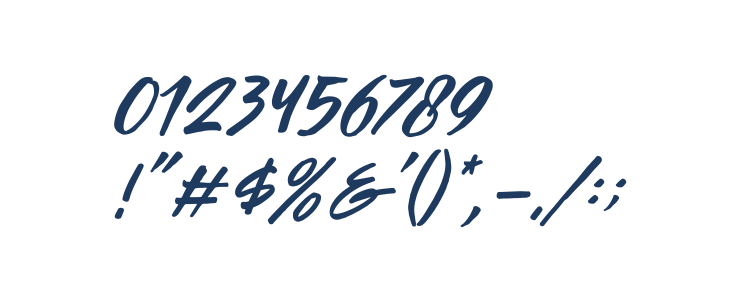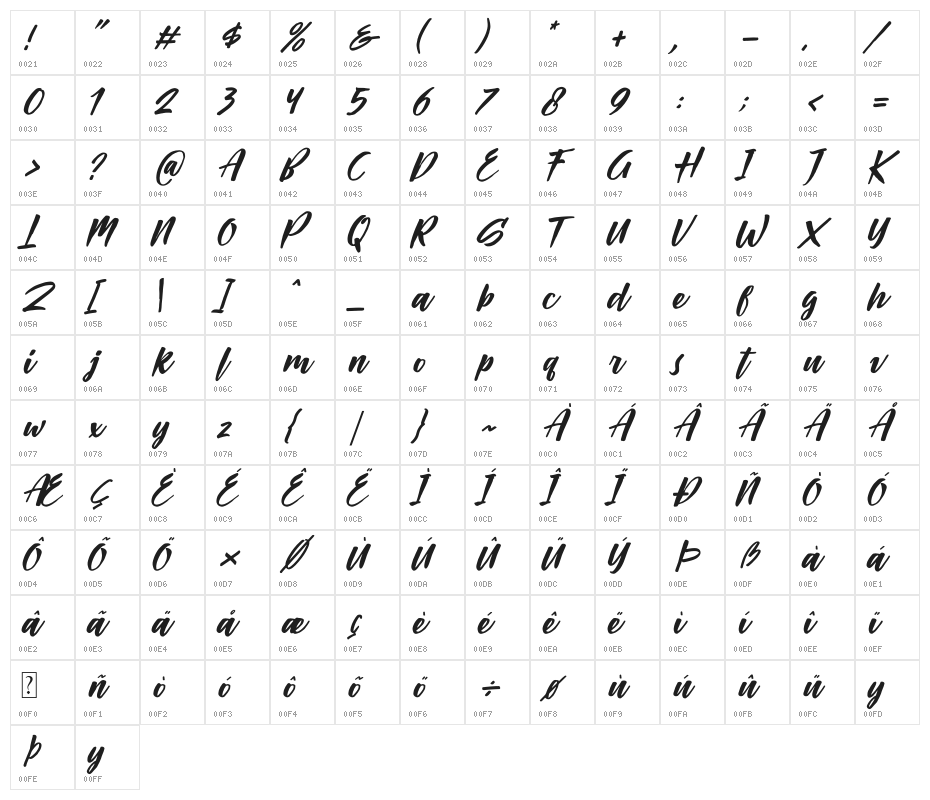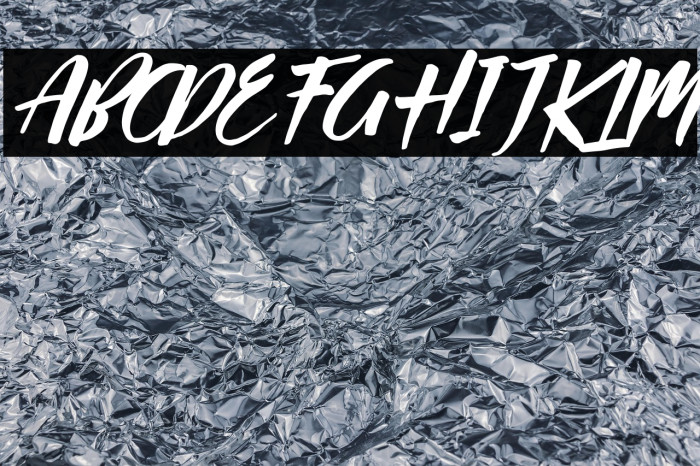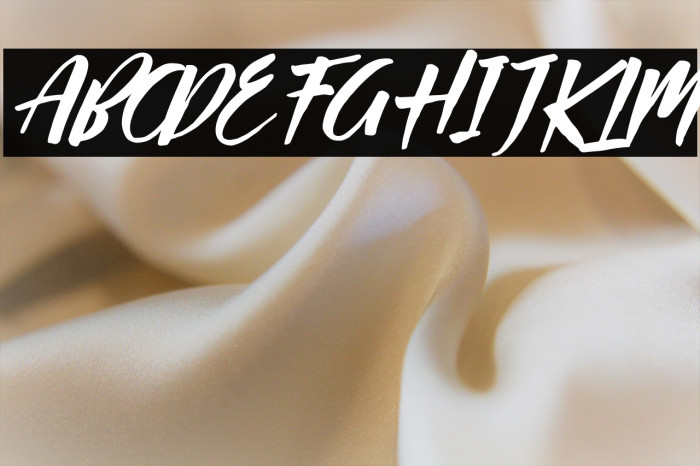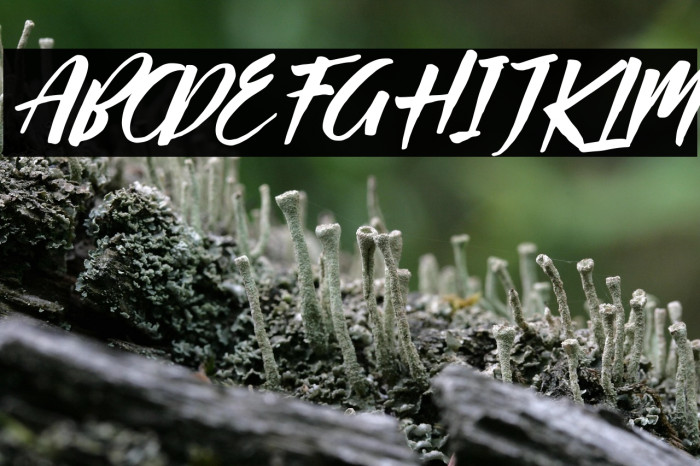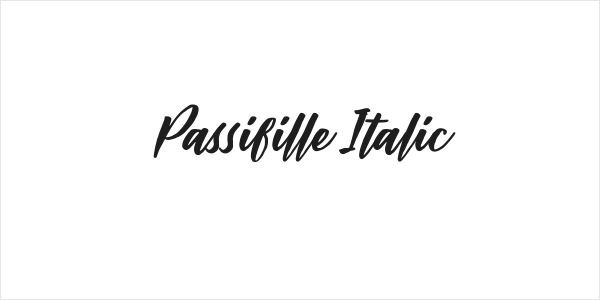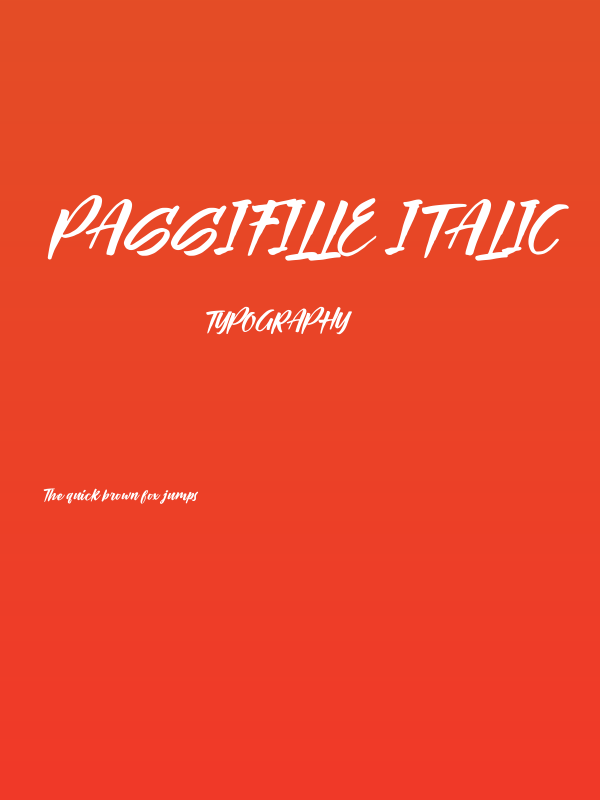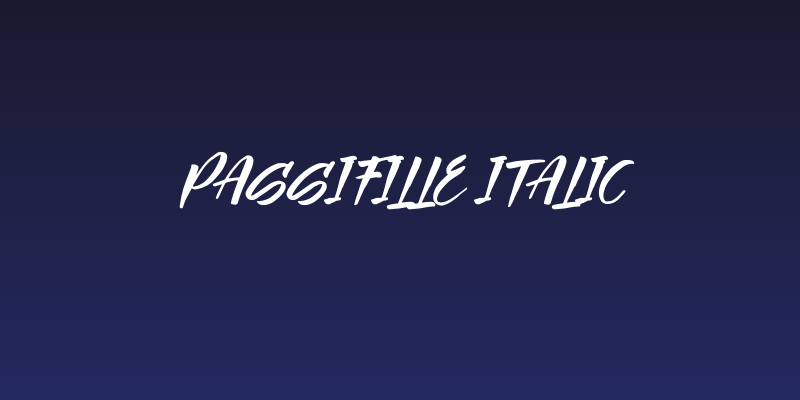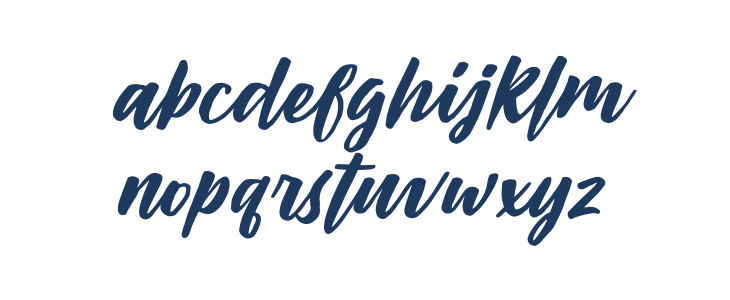
Passifille Italic Font
Passifille Italic Description
This font exudes a dynamic and energetic style, characterized by its bold and fluid strokes. The letters are crafted with a sense of movement, giving them a lively and expressive appearance. The italic slant enhances the sense of speed and fluidity, making it ideal for conveying a sense of urgency or excitement. The uppercase and lowercase letters maintain a consistent style, with rounded edges and a slightly condensed form. The numbers and special characters are equally expressive, integrating seamlessly with the overall design. This font's boldness and unique style make it stand out, perfect for creative and impactful designs.
| Proposed Projects | Perfect for branding, posters, and any project requiring a bold, expressive touch. |